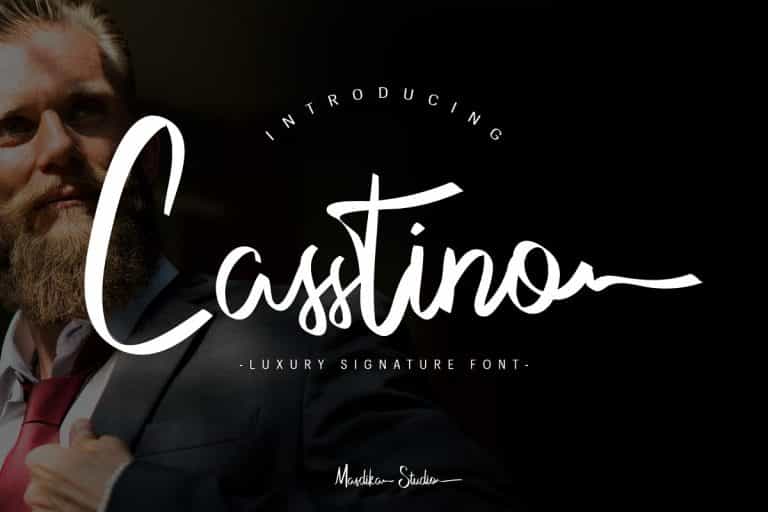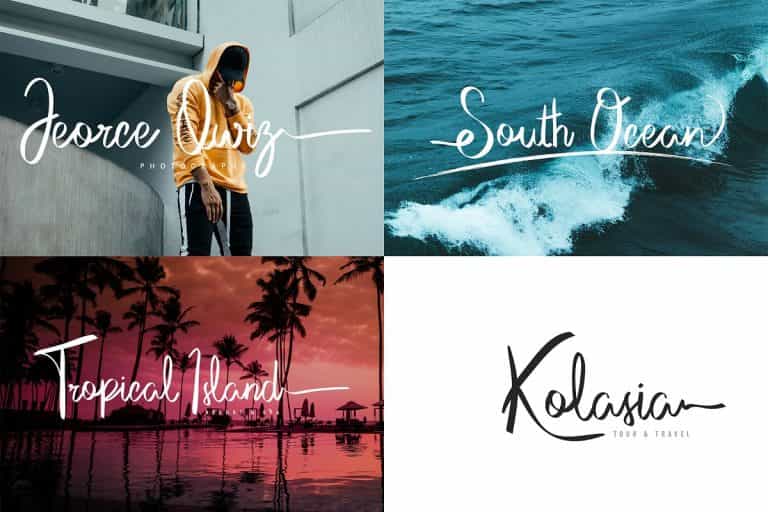
Discover Casstino Handwritten Font, part of the Calligraphy collection—a versatile and unique font perfect for adding a personal touch to your projects. Download it for free and enjoy crafting designs with style, from invitations to social media posts. This font is available exclusively for personal use, giving you the freedom to create without limits. Unlock your creativity with Casstino Handwritten Font today!
Introducing Casstino Font. Casstino Handwritten Font, This is a handwritten script font with sophisticated style. You should make faster strokes and more precise details to the designs thus, your work will be in a personal touch.